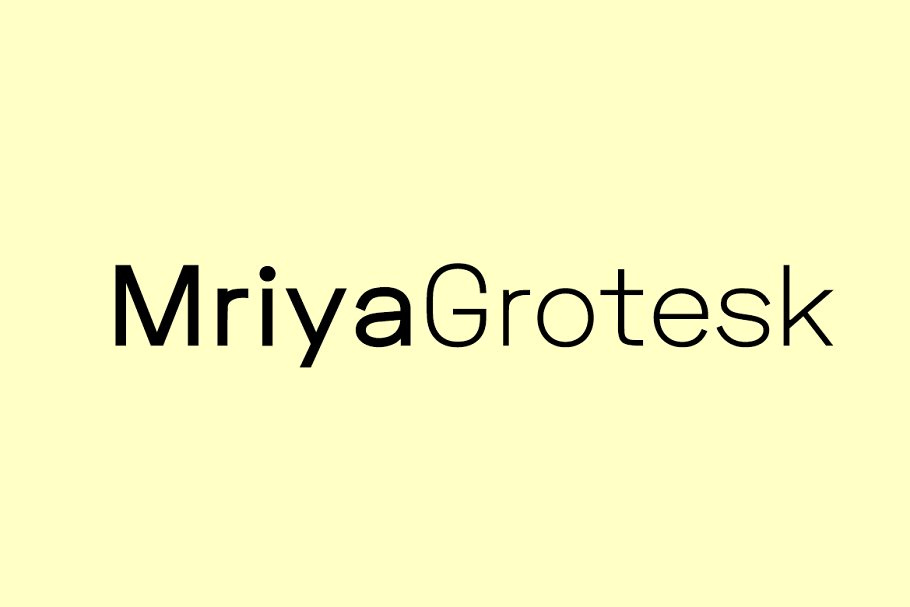
Mriya Grotesk Font
Mriya Grotesk Font is perfect for aspirational lifestyle brands, dream achievement coaching services, visionary tech startups, inspirational wellness centers, goal-oriented educational platforms, and motivational business consulting. Its uplifting character makes it ideal for personal development organizations, vision board creators, life coaching services, entrepreneurial training programs, success mentorship platforms, and any project requiring hopeful inspiration with ambitious vision and transformative empowerment.
This font is exciting because it captures the essence of dreams and aspirations while delivering exceptional functionality for organizations dedicated to helping people achieve their highest potential. The optimistically crafted letterforms evoke feelings of possibility, hope, and unlimited potential, creating powerful emotional connections that resonate with audiences seeking personal transformation, goal achievement, and the courage to pursue their biggest dreams and aspirations.
The Mriya Grotesk Font family typically includes Light, Regular, Medium, and Bold weights with inspirational alternates, vision-focused ligatures, and empowering elements that enhance its aspirational personality. This comprehensive collection enables motivational professionals to create uplifting brand systems that maintain authentic inspiration while offering flexibility for various empowerment applications requiring genuine hope and achievement-oriented market positioning.
Whether you're developing identity systems for personal development companies, creating materials for motivational speaking events, or designing platforms for goal achievement services, Mriya Grotesk Font Free Download delivers the inspirational energy and visionary appeal that connects with audiences pursuing their dreams and highest aspirations. Its hopeful presence ensures memorable brand recognition across digital platforms and print materials, making it perfect for websites, mobile applications, and motivational campaigns that celebrate human potential, dream achievement, and the transformative power of believing in possibilities with contemporary empowerment and authentic inspirational excellence.